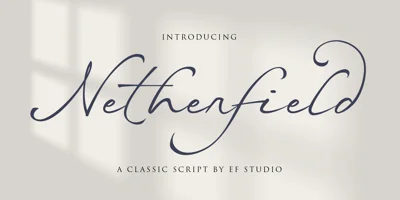
Netherfield Font
The Netherfield Font excels in various design applications including English countryside estate branding, classic literature publications, aristocratic wedding invitations, heritage manor communications, period drama marketing, distinguished literary projects, traditional English garden signage, regency-inspired events, historical society materials, and refined cultural institutions that demand English countryside elegance and aristocratic sophistication.
What makes the Netherfield Font exciting is its exquisite capture of English countryside aristocracy and literary romanticism through letterforms that evoke the refined elegance of grand estates and the timeless charm of classic English literature. This typeface embodies the essence of period sophistication through carefully crafted characters that suggest the dignified correspondence of country gentlemen, the elegant penmanship of accomplished ladies, and the enduring appeal of English literary tradition. The font's aristocratic personality makes it perfect for heritage brands and cultural institutions seeking to communicate refined taste, literary sophistication, and the timeless elegance of English country life through typography that transports readers to the world of grand estates and romantic literature.
The Netherfield Font family typically includes distinguished weight variations that preserve the English countryside aesthetic, featuring elegant italic styles with period-appropriate flourishes and classical decorative elements. These family options often include literary alternates with enhanced romantic characteristics, period ligatures, and aristocratic ornaments that provide designers with comprehensive tools for creating authentically English typography that honors literary traditions while maintaining contemporary accessibility and cultural sophistication.
Literary publishers and heritage organizations consistently choose Netherfield Font for projects requiring typography that establishes English cultural authenticity and literary excellence. This typeface delivers exceptional performance in period marketing, literary branding, and cultural communications where demonstrating appreciation for English literary heritage and establishing aristocratic elegance is essential for sophisticated audience engagement. The font's countryside character makes it particularly effective for romantic and historical applications. Download Netherfield Font today to access this distinguished typeface that transforms communications with its English countryside elegance and literary sophistication, creating compelling cultural experiences that honor the magnificent tradition of English literature while celebrating the enduring appeal of aristocratic refinement and countryside charm.